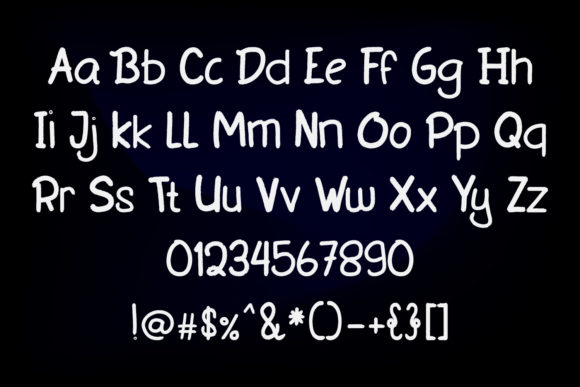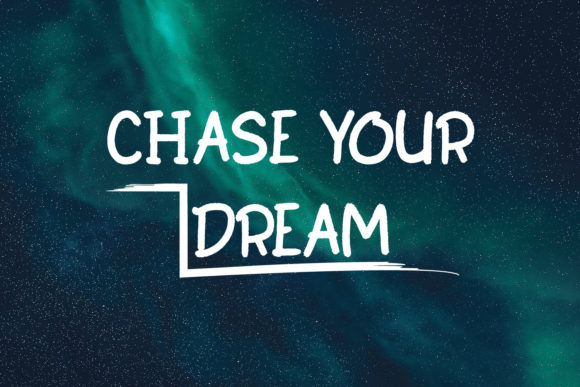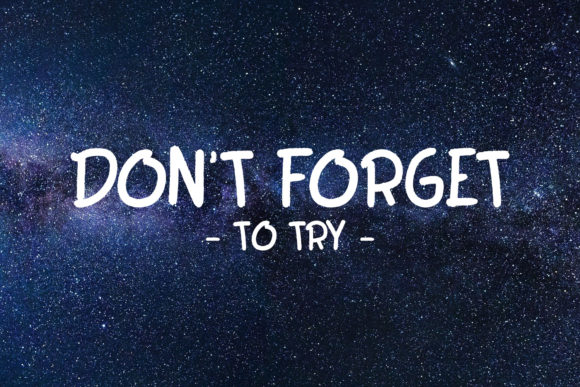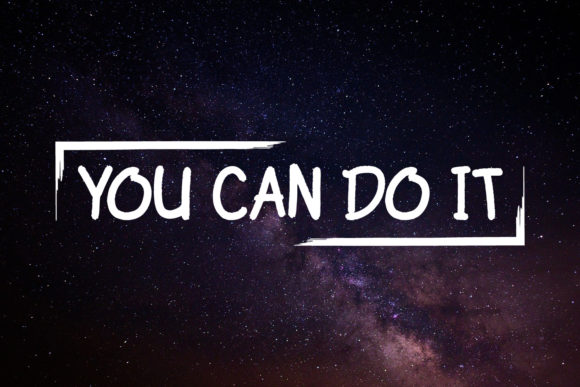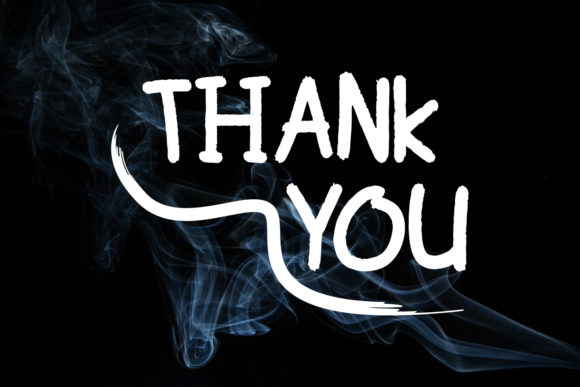
Introduction to Lionesia Font
As a designer, there’s nothing quite like the thrill of brainstorming a new project, and the blank page staring back at you seems to whisper endless possibilities. It’s a moment of pure creative freedom, where the only limit is your imagination. For those moments when you need a little inspiration, we’re excited to introduce you to the Lionesia Font – a stunning, handcrafted display font that’s perfect for any crafty logo, branding, or DIY project.
This beautiful font was lovingly created with the help of a fine brush pen, resulting in a high-quality design resource that’s just begging to be used. With its endless variations, the Lionesia Font is a versatile tool that’s sure to elevate your creative project to the next level.
Whether you’re working on a design for social media, a logo, or a crafty project, the Lionesia Font is a valuable addition to your design arsenal. And the best part? It’s available for free download, making it a must-have resource for any designer looking to add a touch of elegance to their work.
Key Features of Lionesia Font
- Unique, hand-drawn design with a high level of detail, making it perfect for creative projects.
- Suitable for a wide range of creative projects, including logos, branding, and typography-based designs.
Honest Review: Lionesia Font
I recently had the chance to work with the Lionesia Font, and I must say, it’s been a game-changer for my design projects. As a designer, I’m always on the lookout for high-quality fonts that can elevate my creative projects and help me stand out from the crowd. The Lionesia Font definitely delivers on that front.
- ✨ Beautiful and elegant design: The Lionesia Font has a unique, hand-drawn feel that adds a touch of sophistication to any design.
- ✨ High-quality: The font is crisp and clear, making it perfect for both digital and print projects.
As with any font, there are some limitations to consider:
- ⚠️ Limited font weights: The Lionesia Font only comes in a few weights, which may limit its use in certain design scenarios.
- ⚠️ Not suitable for very small text: Due to its elegant design, the font may not be the best choice for very small text sizes.
Overall, I’m really impressed with the Lionesia Font. It’s a great addition to any designer’s toolkit, and I would highly recommend it for any creative project that requires a touch of elegance and sophistication.
Tips for Getting the Most Out of Lionesia Font
To get the most out of the Lionesia Font, experiment with different font sizes, colors, and styles to create a unique and eye-catching design. You can also use the font in combination with other design elements to create a cohesive and visually appealing design.
The Lionesia Font is perfect for creative projects such as logos, brochures, flyers, and social media graphics. Its high-quality design and transparent background make it a versatile and effective design resource for any project.